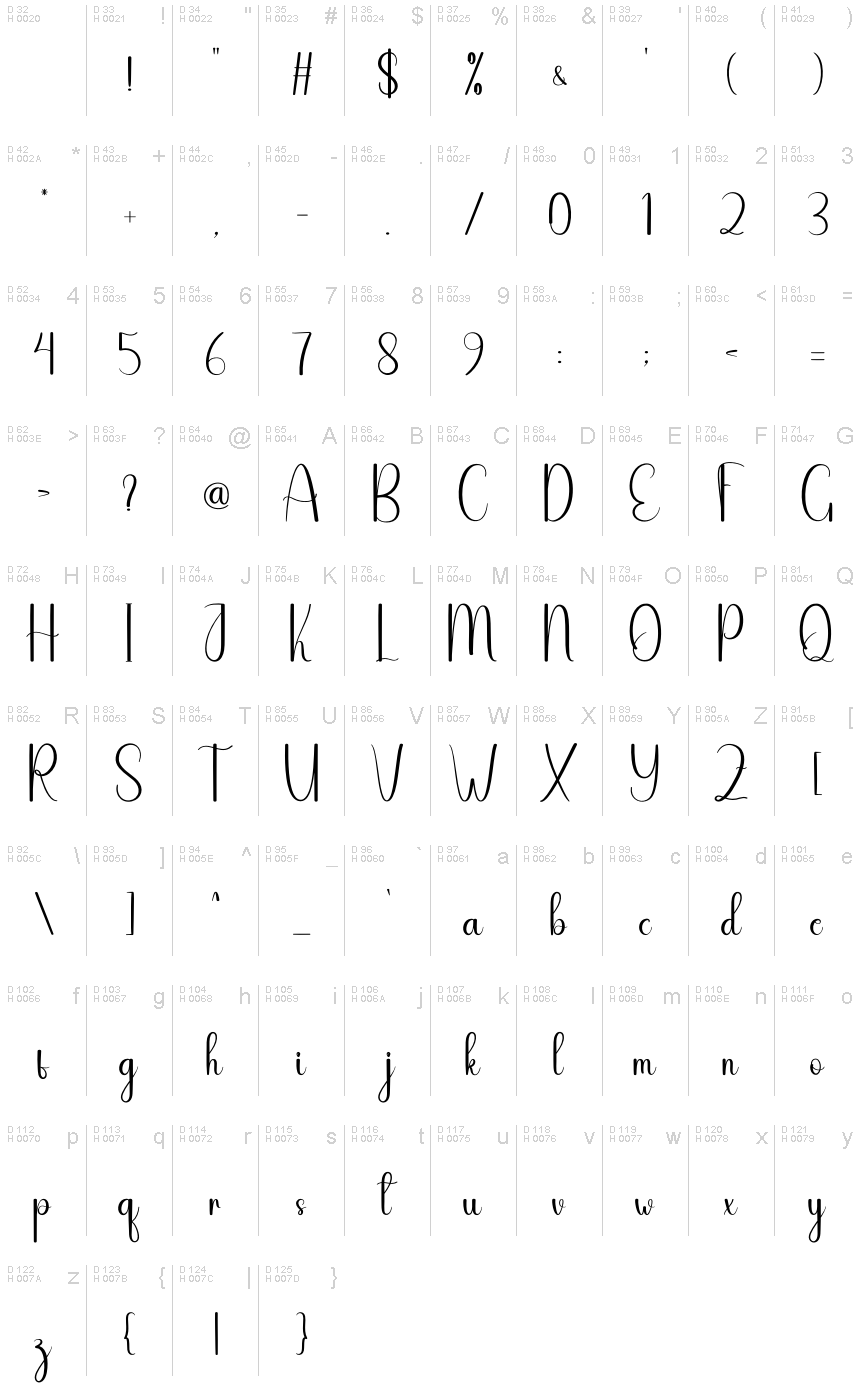
Srundle
Srundle is a captivating handwritten font that exudes a sense of effortless elegance. Designed by Andi Moz, this font showcases a harmonious blend of organic curves and playful flourishes, creating a charming and distinctive aesthetic.
The fluid, hand-lettered strokes lend a touch of personality and warmth to any design, making Srundle an ideal choice for a wide range of applications, from branding and packaging to editorial layouts and greeting cards.
Its versatility allows it to seamlessly integrate into both modern and vintage-inspired designs, adding a touch of personal flair and narrative to the overall composition.